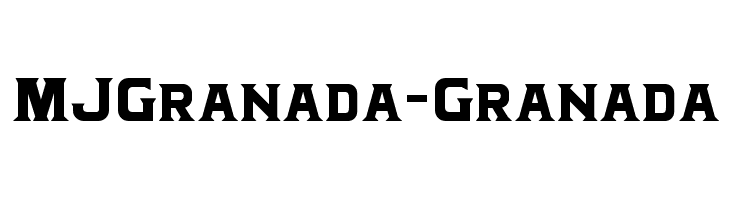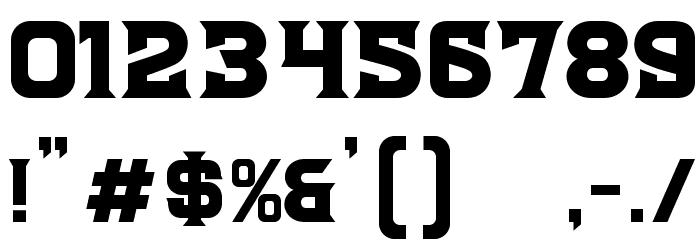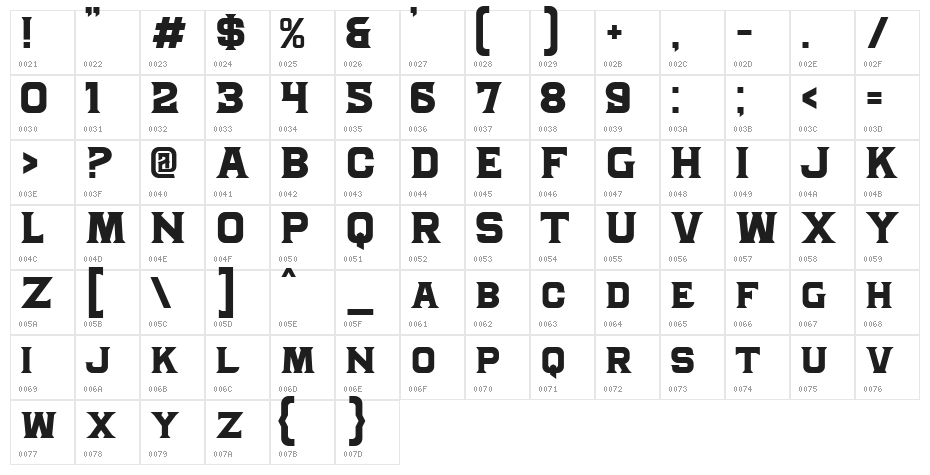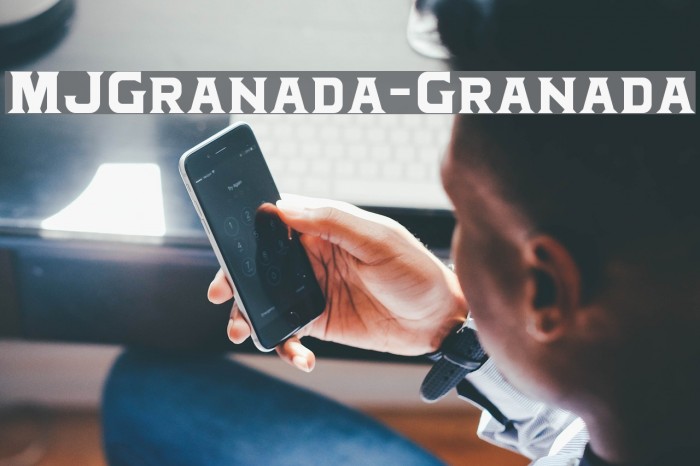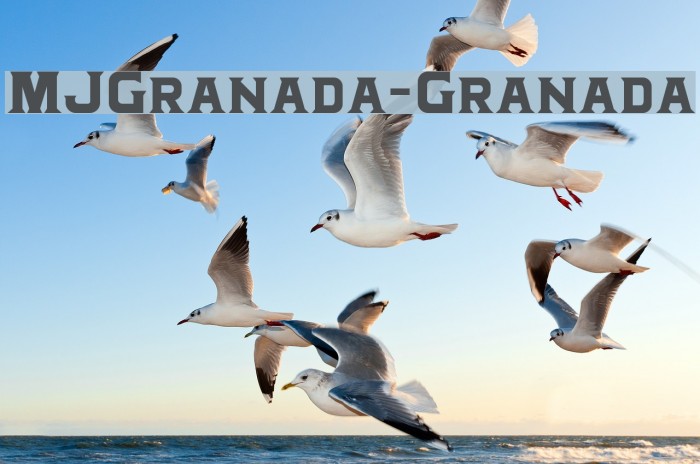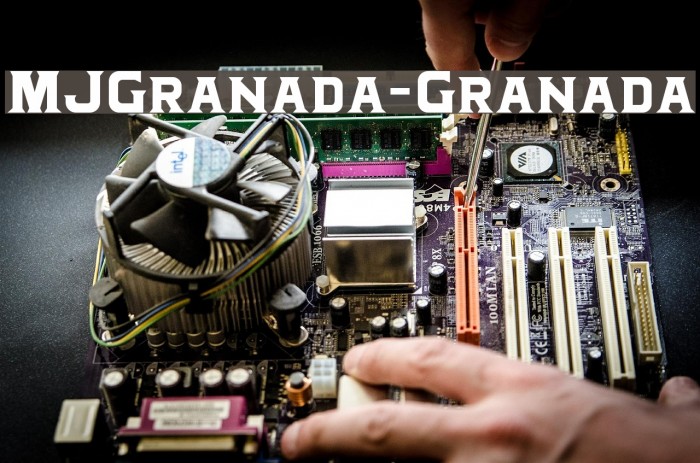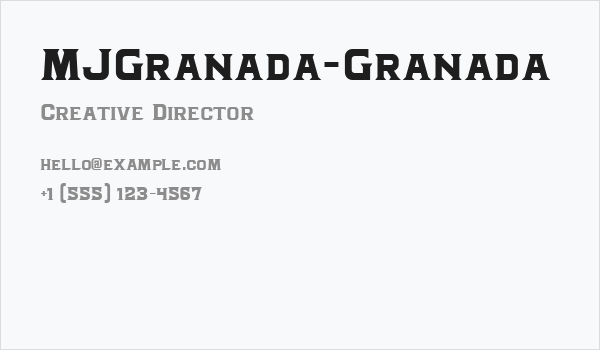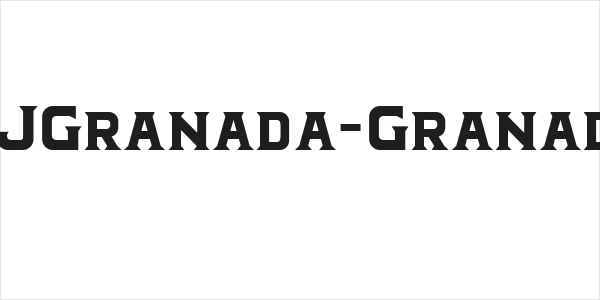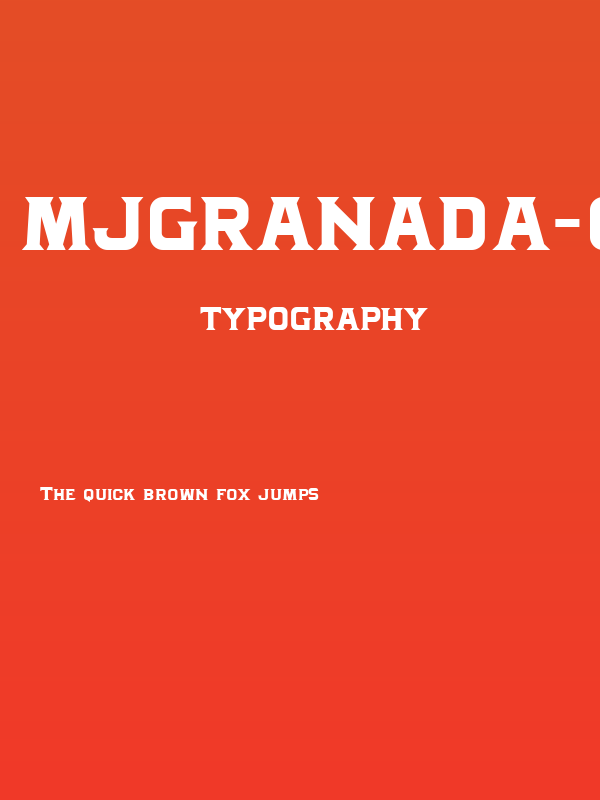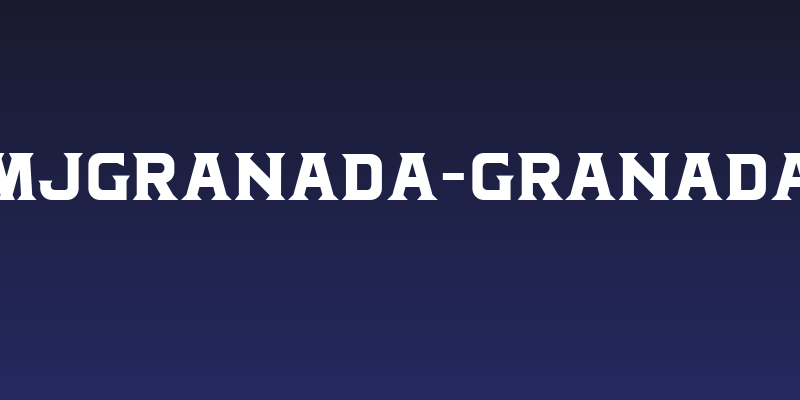
MJGranada-Granada Font
MJGranada-Granada Description
This font features a bold and striking design with strong geometric shapes and a robust presence. The characters are crafted with sharp edges and a consistent weight, giving them a powerful and authoritative look. The uppercase letters are particularly prominent, with a uniform height and width that convey stability and strength. The numerals and special characters maintain this bold aesthetic, ensuring a cohesive appearance across all text elements. The font's style is reminiscent of industrial or sports themes, making it ideal for projects that require a commanding visual impact.
| Proposed Projects | Ideal for sports branding, industrial design, posters, and headlines that require a bold statement. |